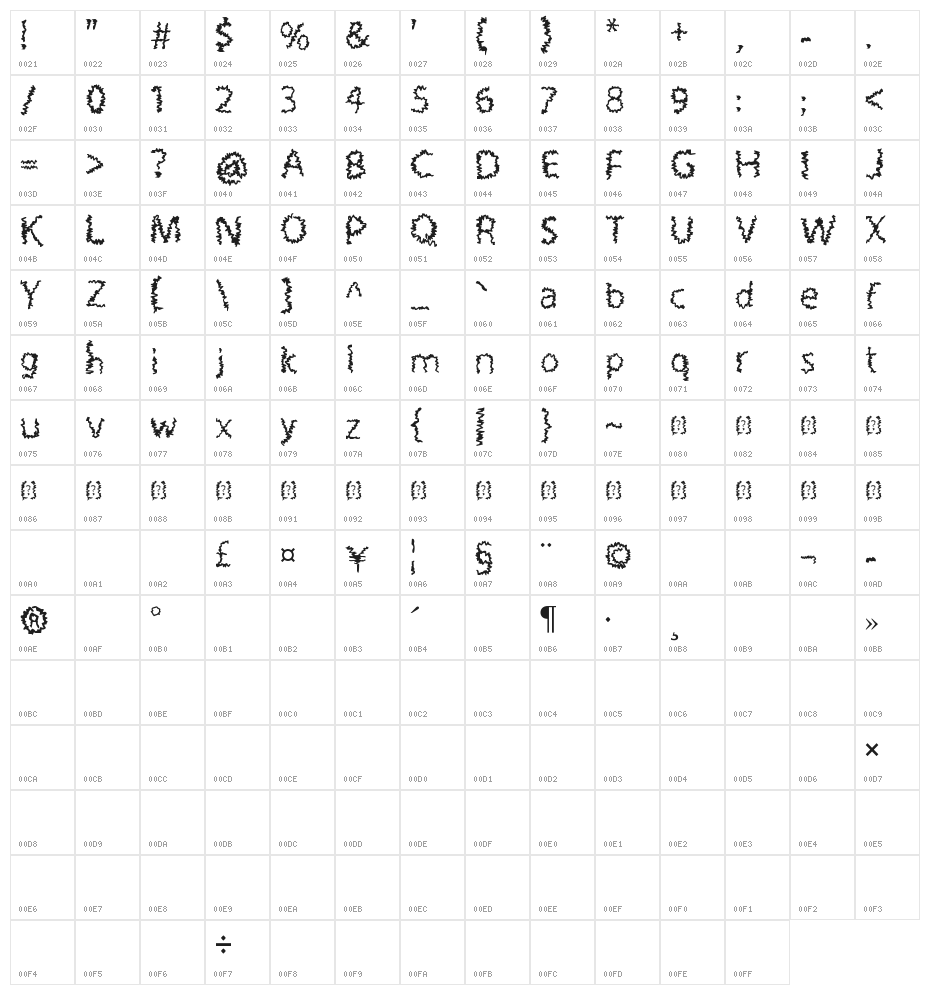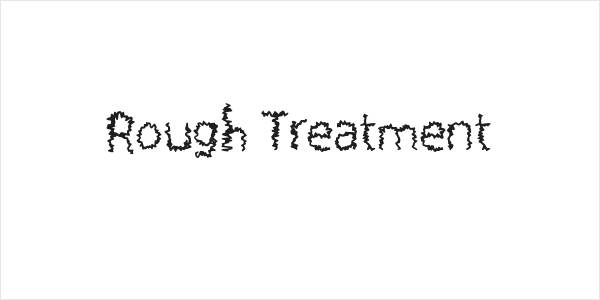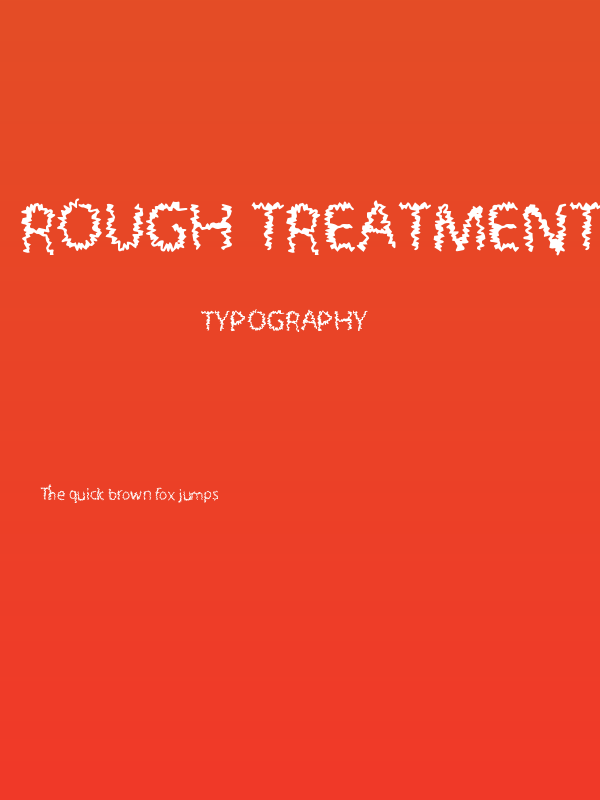
Rough Treatment Font
Rough Treatment Description
This font features a jagged, rough-edged style that gives it a dynamic and energetic appearance. Each character is uniquely crafted with irregular, zigzag outlines, creating a sense of movement and unpredictability. The uppercase and lowercase letters maintain a consistent height, while the numbers and special characters follow the same rugged design. This font's distinctive look makes it ideal for projects that require a bold and unconventional aesthetic. Its chaotic yet controlled form can add a striking visual impact to any design.
Proposed ProjectsPerfect for edgy posters, album covers, or any design needing a bold, unconventional look.